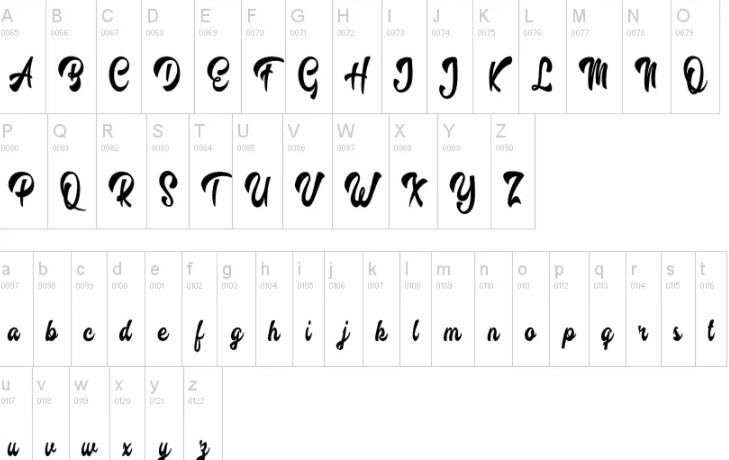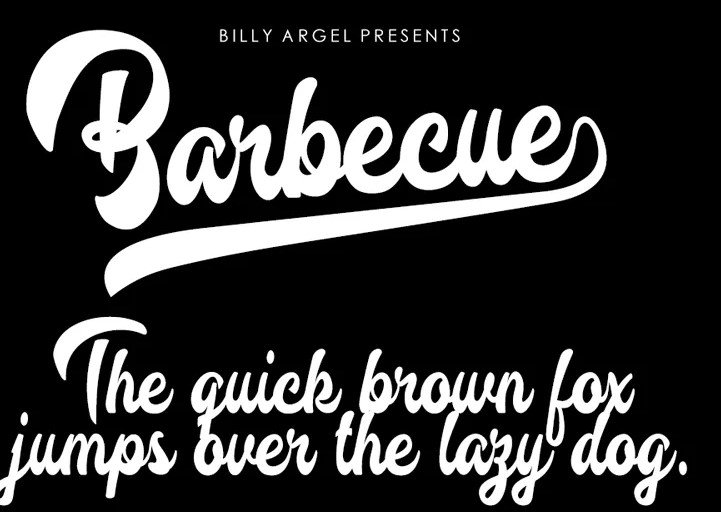
It is one of the great fashionable typefaces which is suitable for all kinds of gorgeous designs. Also, it can works great with the combination of tiki hut font.
View Of Barbecue Font
Before scroll down, lets see the example of this typeface which we provided by showing all the characters and glyphs contains in this font.
As you can see its unique and beautiful scripted texture typeface stylish characters that are perfect in all graphic cases. It is great to use in making posters, cards, invitations, website logos, minimalist designs, and other cool stuff that can be made just with this font.